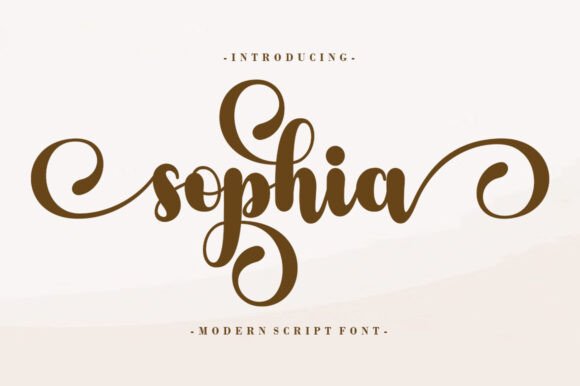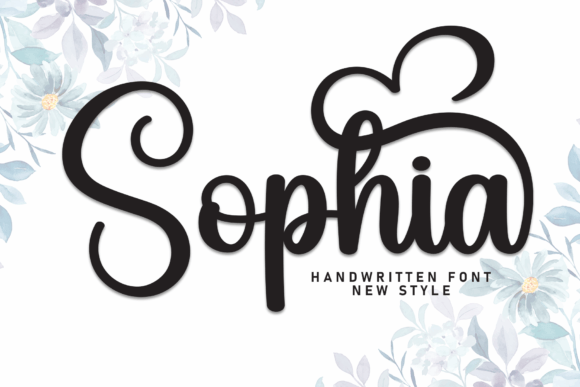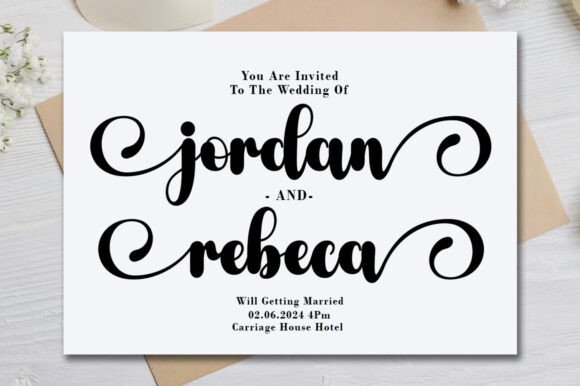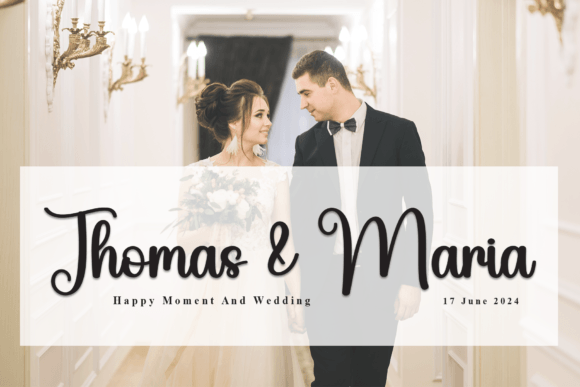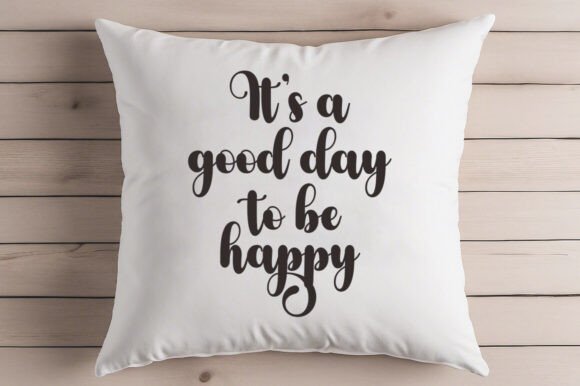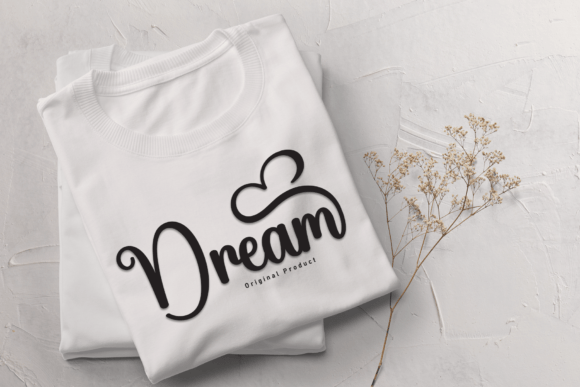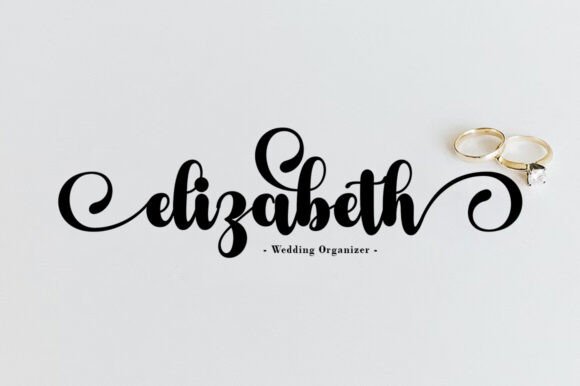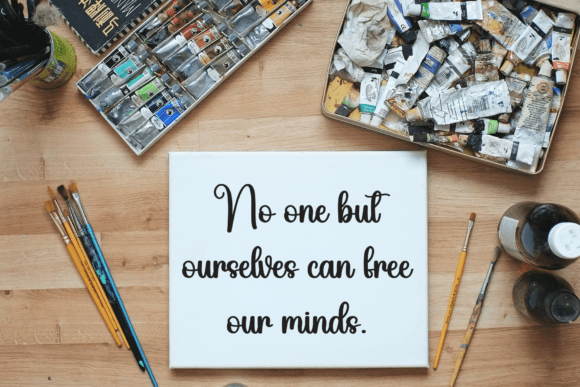
Sophia Font
About the Sophia Font
We are excited to introduce Sophia Font, a must-have typeface for any serious designer. Sophia is a stylish and very elegant handwritten font. This font looks stunning on wedding invitations, thank you cards, quotes, greeting cards, logos, business cards, and every other design that needs a handwritten touch.